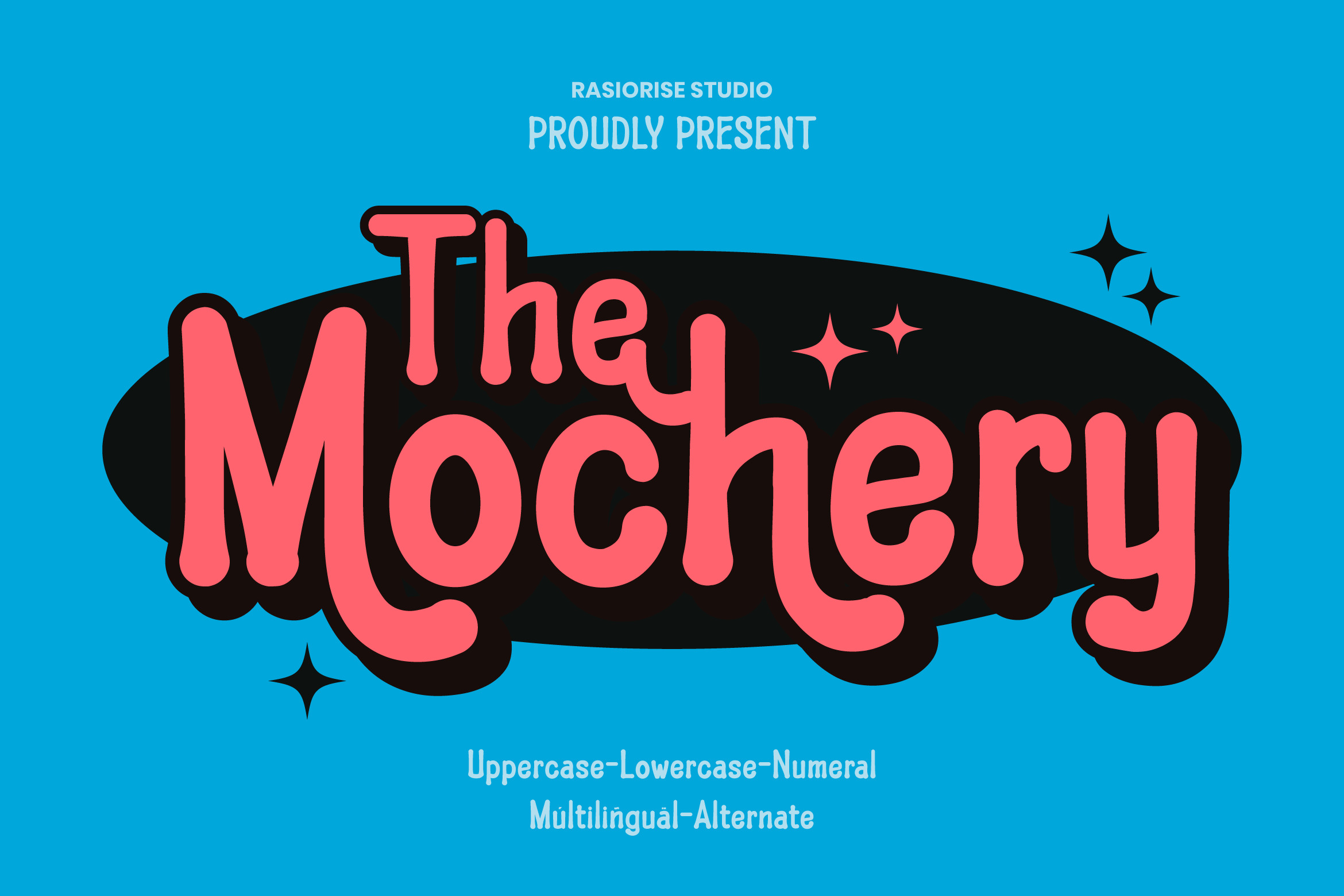
The Mochery Font
Hello Everyone! The Mochery Font has been released for those of you who are looking for a Retro Playful Font. A Retro Cursive Font that combines the Sans Serif Rounded and Bold typeface. This font is inspired by the 60s, 70s and 80s Retro Cartoon movie, a Sans Serif font with several combinations to combine Pop and Playful styles like a Retro Cartoon Comis. With easy-to-read character font for your Retro Cartoon vibes, also you can easily create beautiful and stand-out typography and retro. Unleash your creativity with The Mochery Font and let your retro catoon comic projects!.
The Mochery is perfect for Logotype, Book Cover, Gift Cards, Greeting Cards, Posters, Merchandise, Packaging Labels, and more.